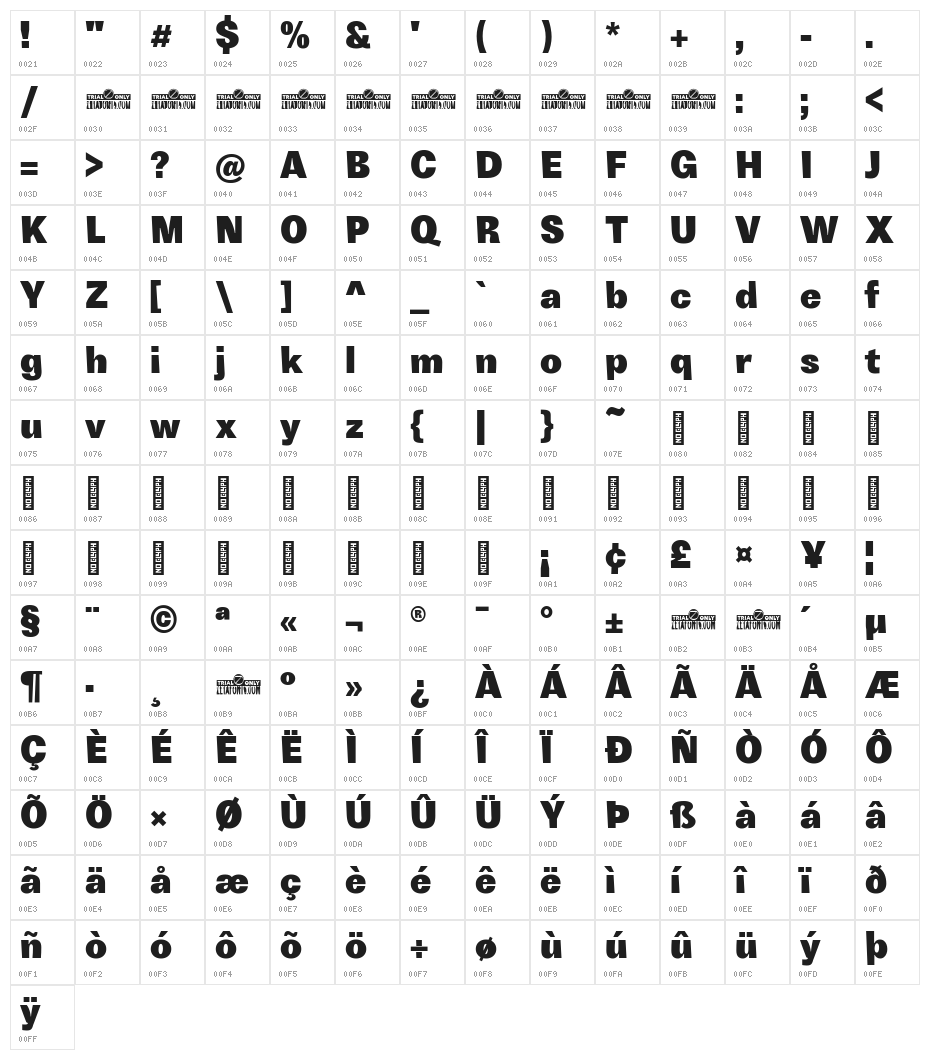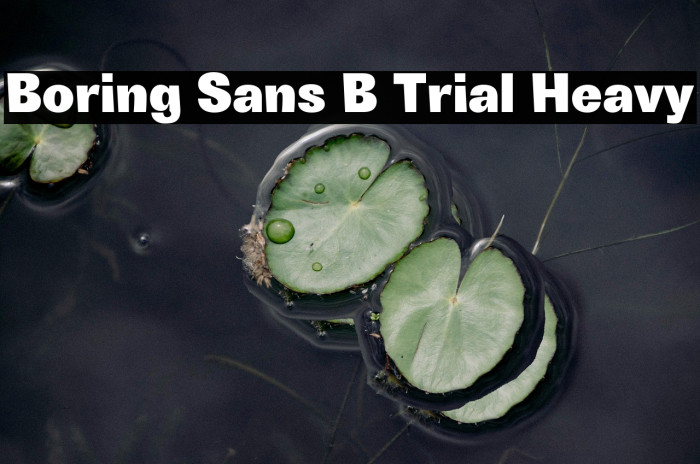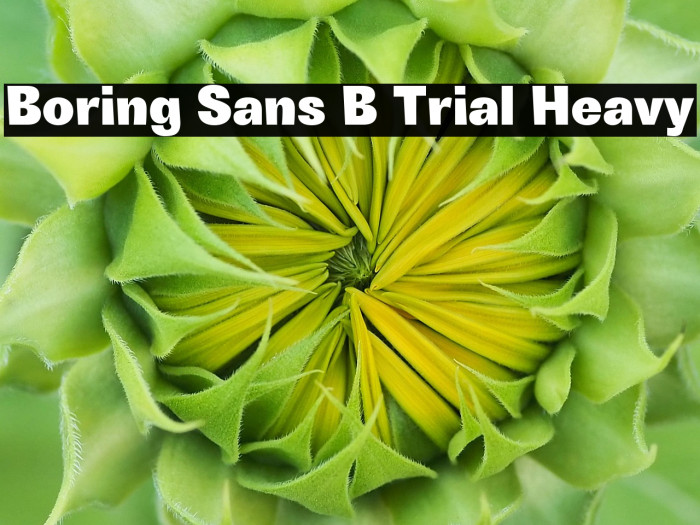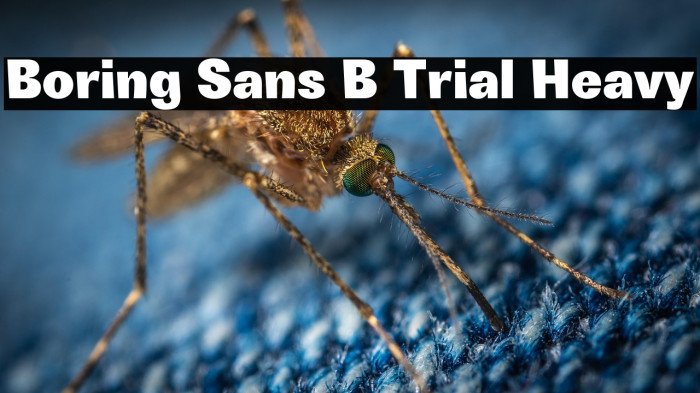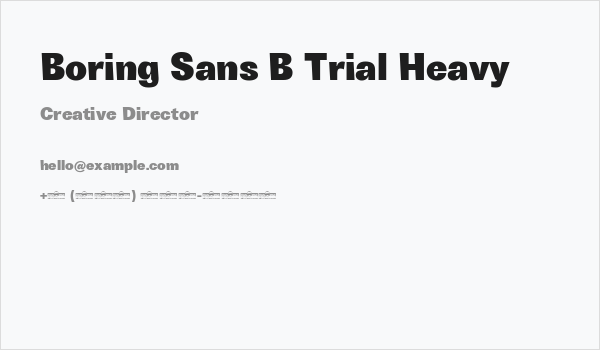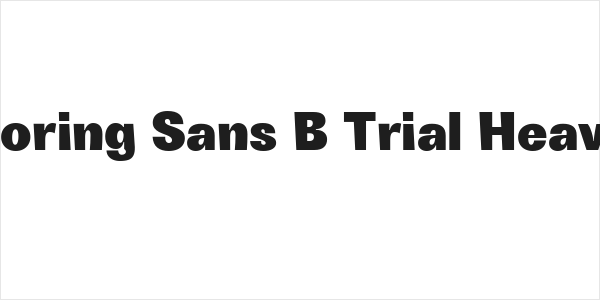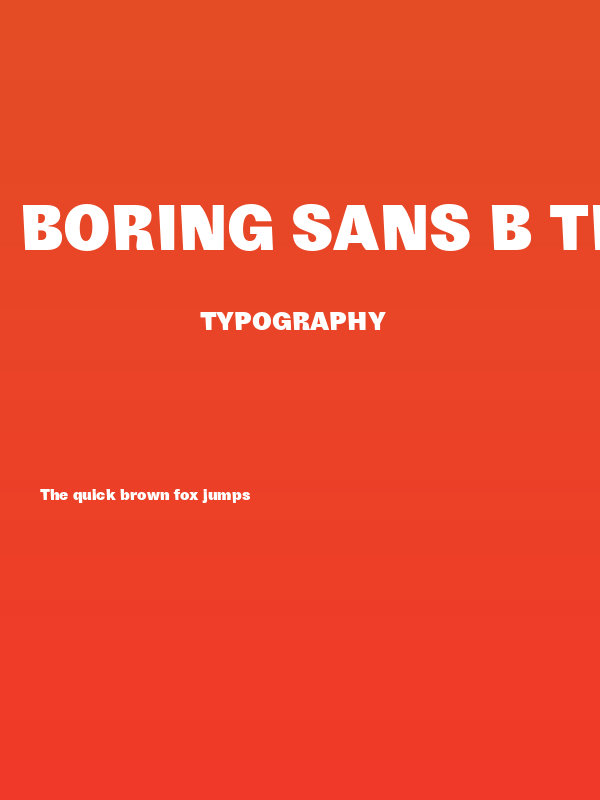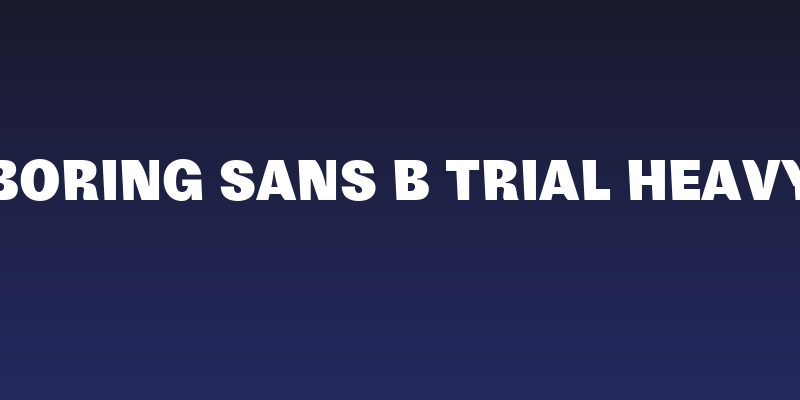
Boring Sans B Trial Heavy Font
Boring Sans B Trial Heavy Description
This font features a bold and heavy sans-serif style, characterized by its thick strokes and strong presence. The uppercase and lowercase letters maintain a consistent weight, providing a uniform appearance across the alphabet. The characters are designed with a modern aesthetic, offering a clean and straightforward look. The font includes a full set of numerals and a variety of special characters, making it versatile for different design needs. Its boldness ensures high readability, making it suitable for impactful headlines and attention-grabbing text.
| Proposed Projects | Ideal for branding, advertising, posters, and any project requiring a strong visual impact. |